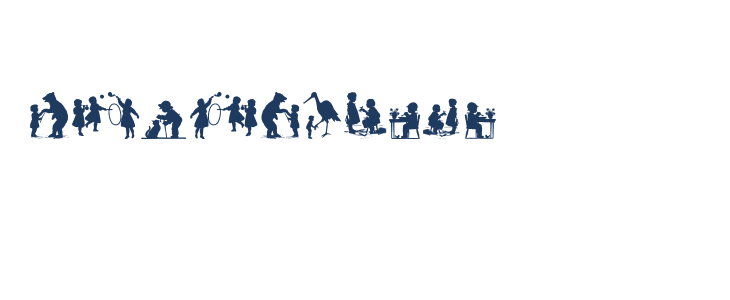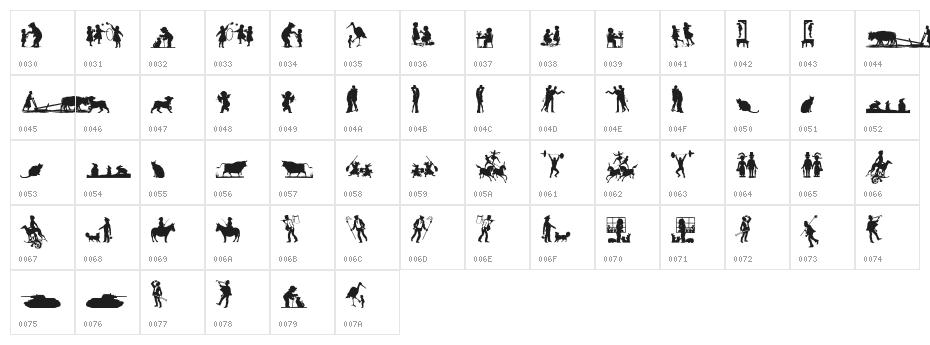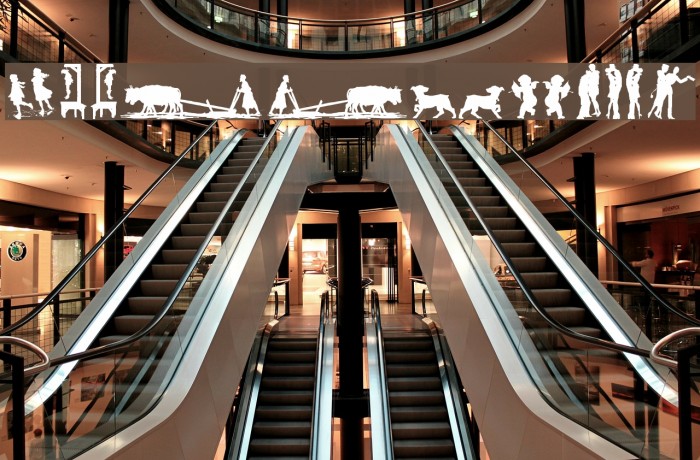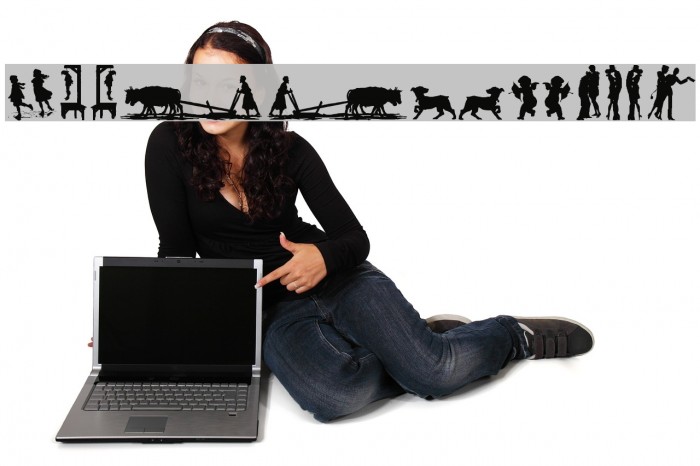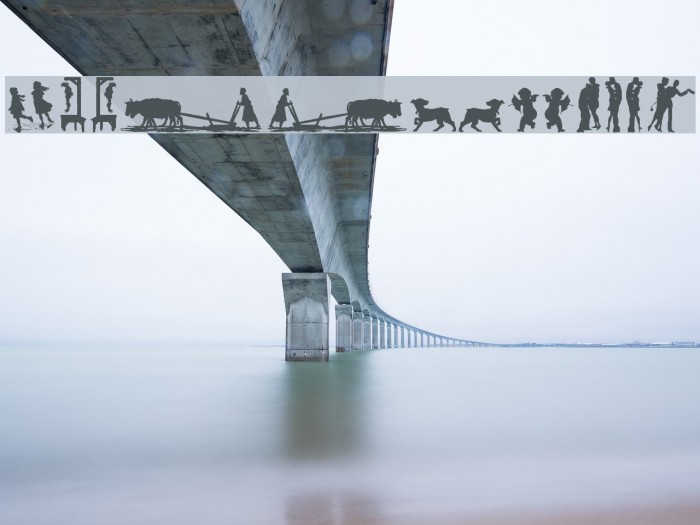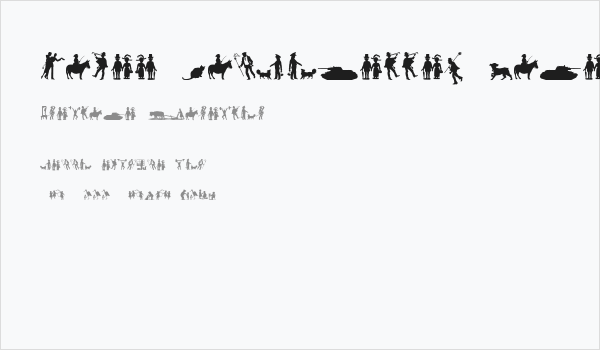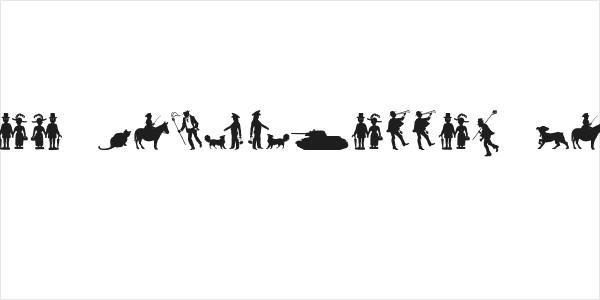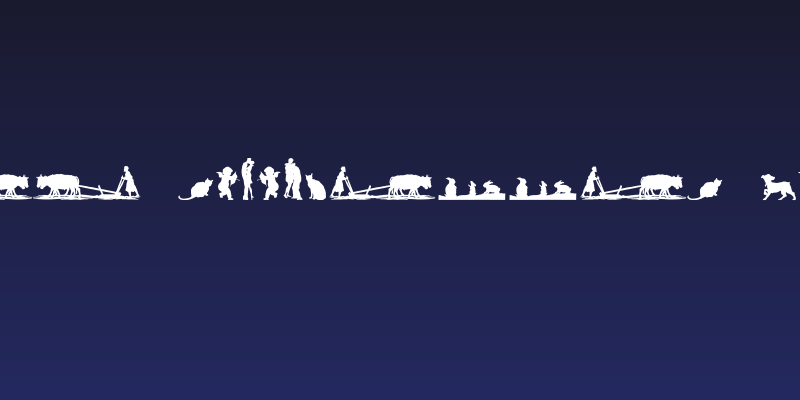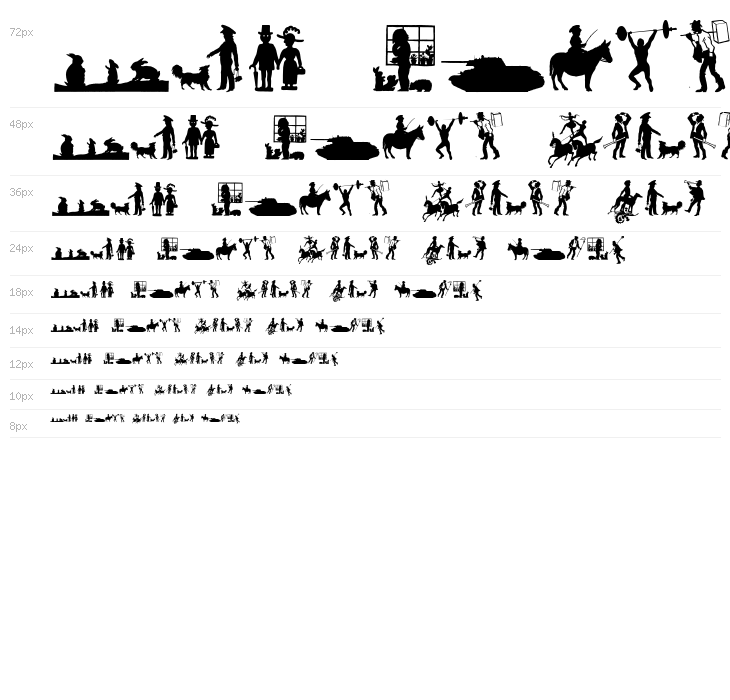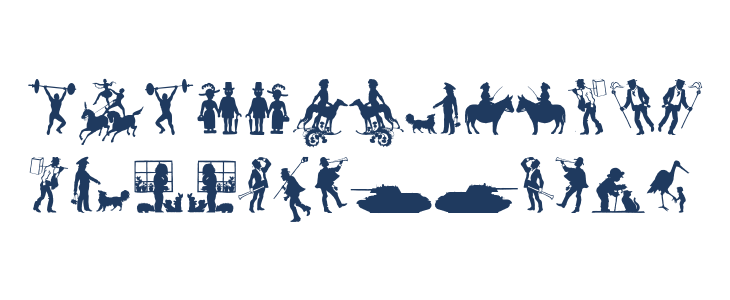
Mixed Silhouettes Five Font
Mixed Silhouettes Five Description
A decorative silhouette font featuring a variety of human, animal, and object shapes in black, with each character represented by a unique scene or figure. The style is playful and illustrative, with high visual contrast and no traditional letterforms.
| Overall Style | Decorative, Playful, Illustrative |
| Use Case | Display, Posters, Children's materials, Themed graphics |
| Proposed Projects | Children's books, posters, educational materials, themed invitations, creative branding. |